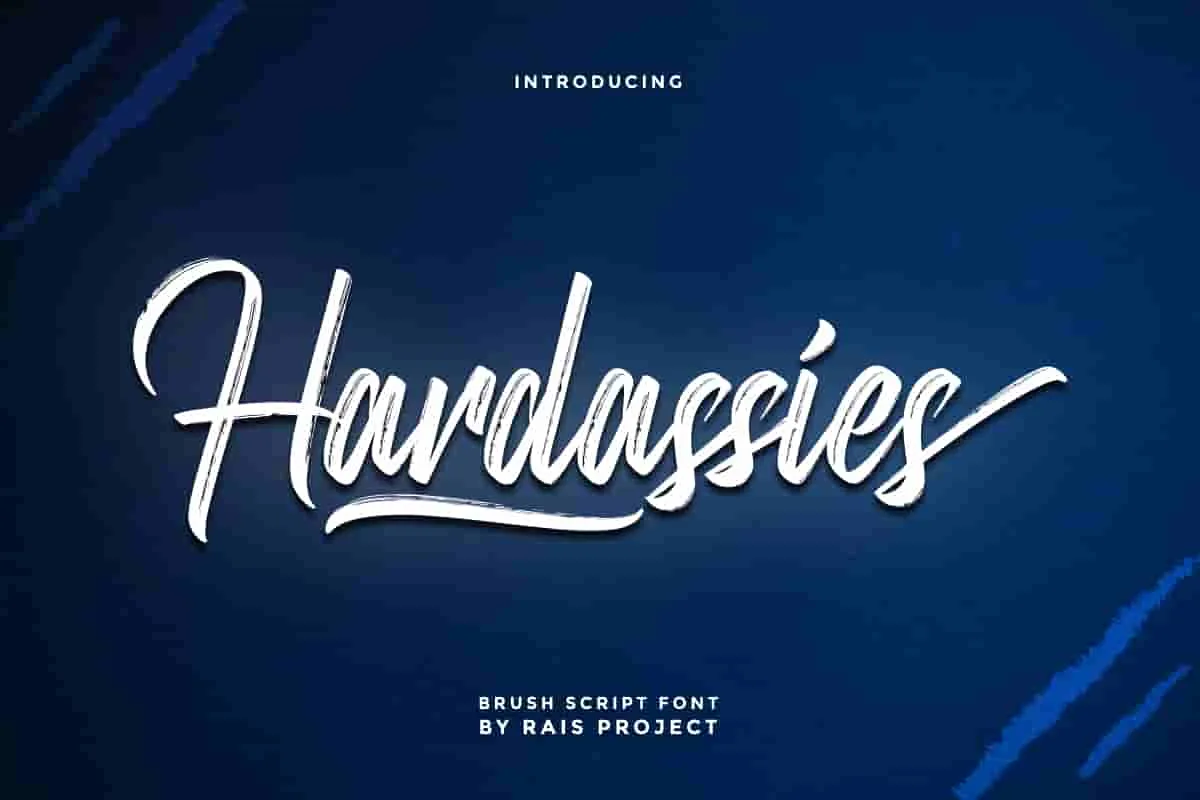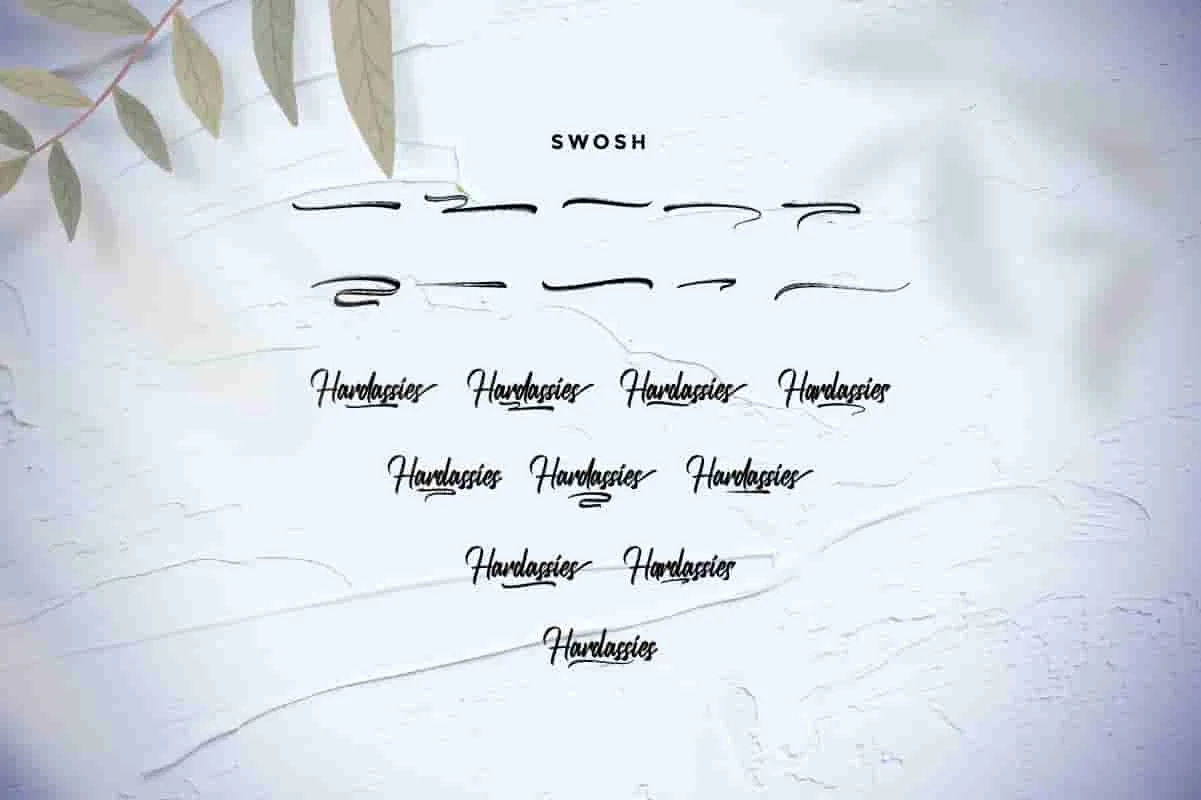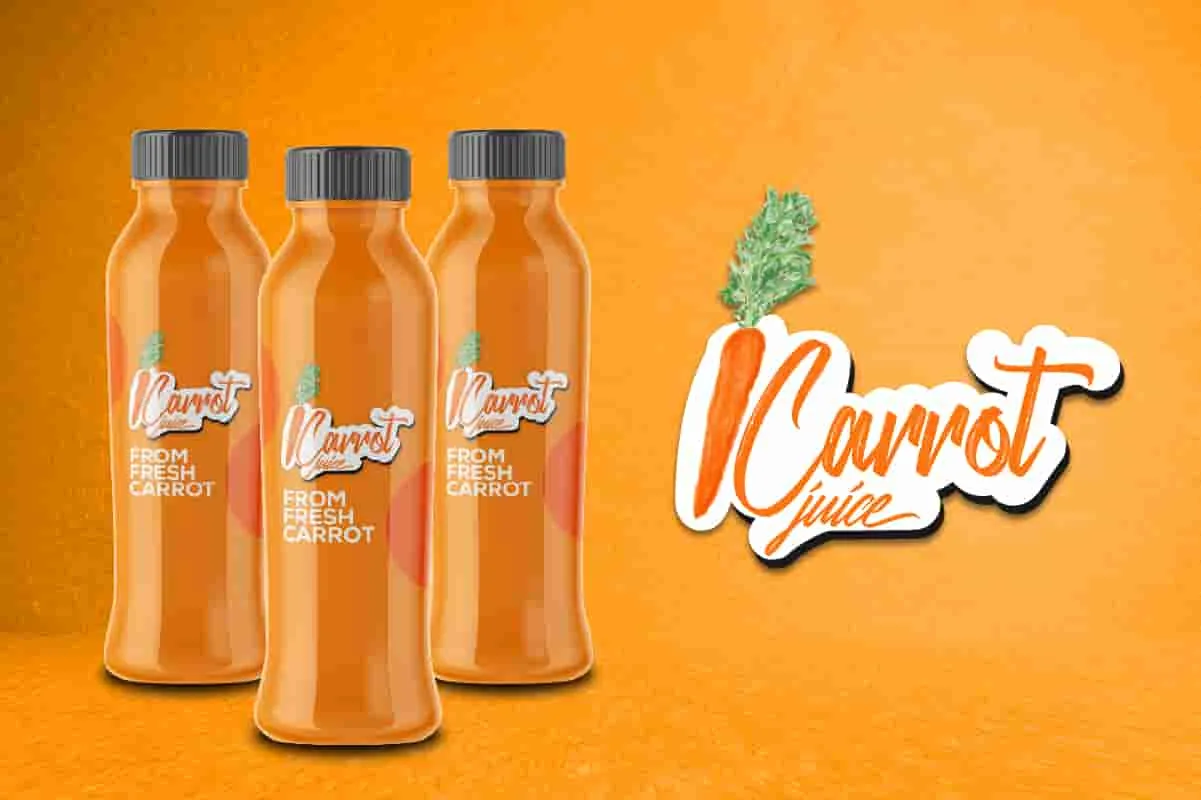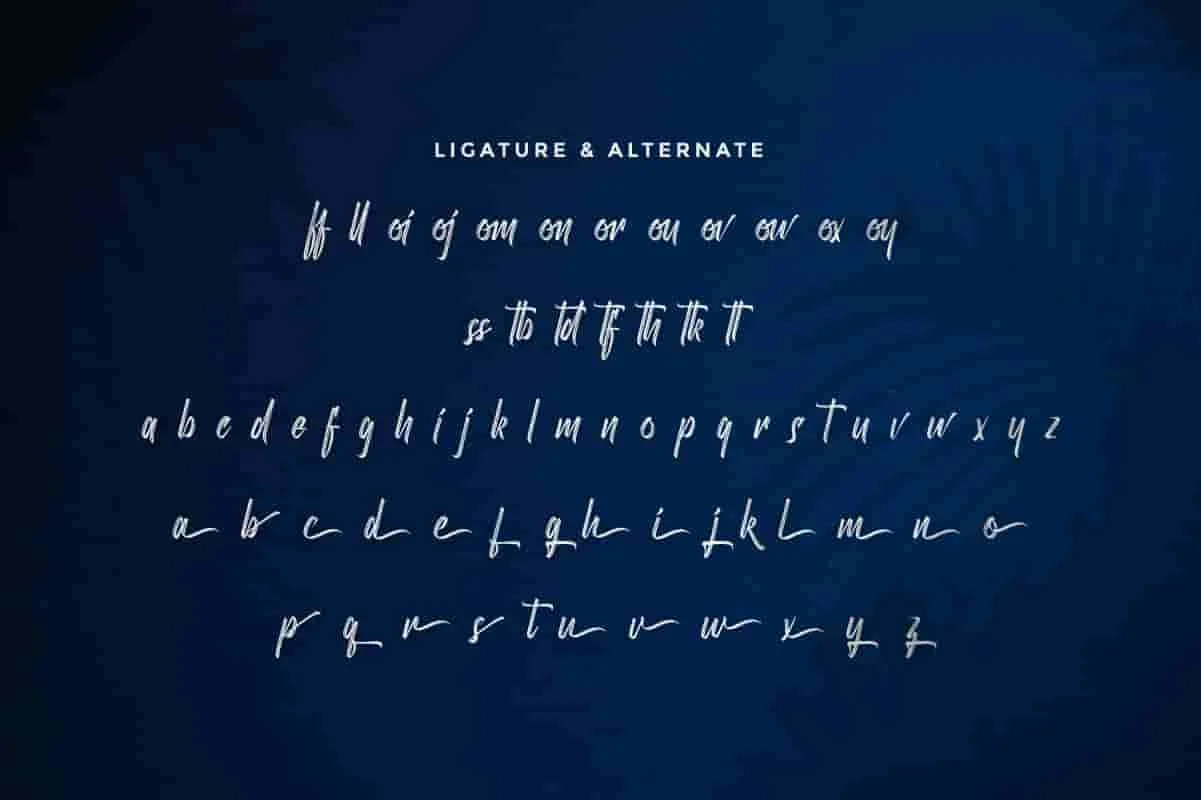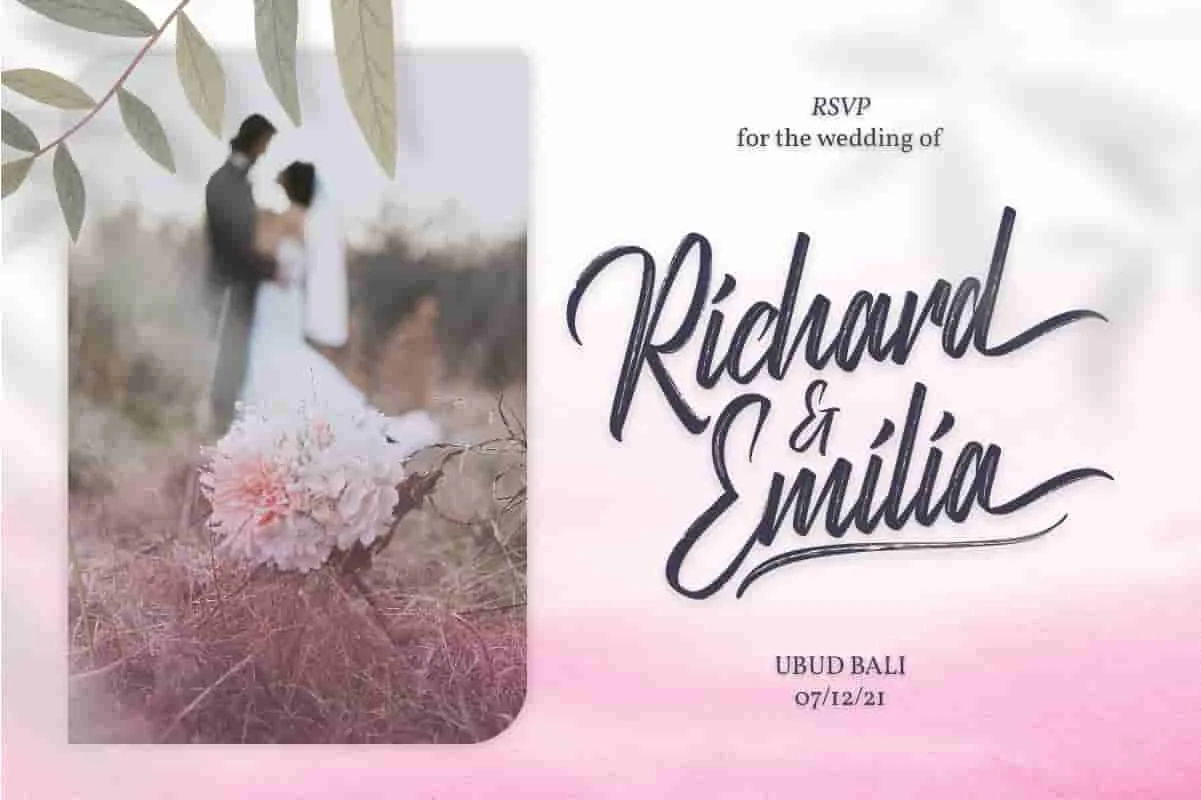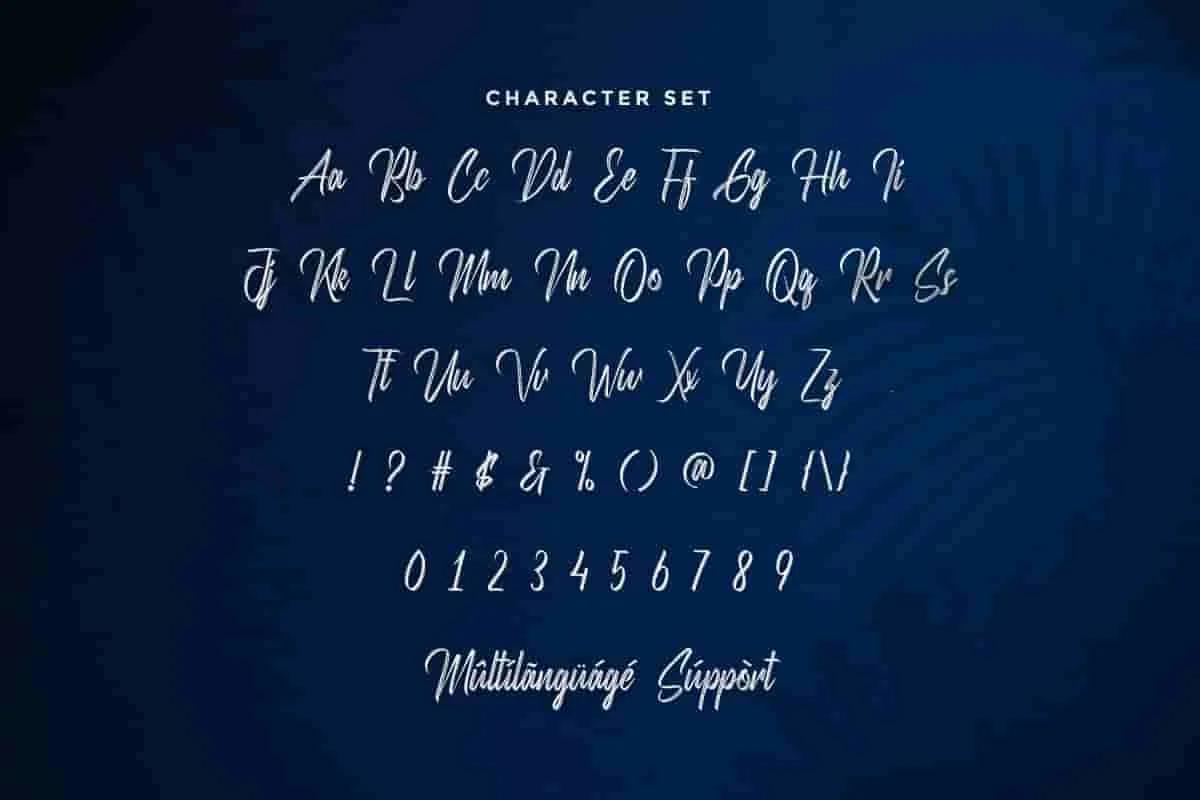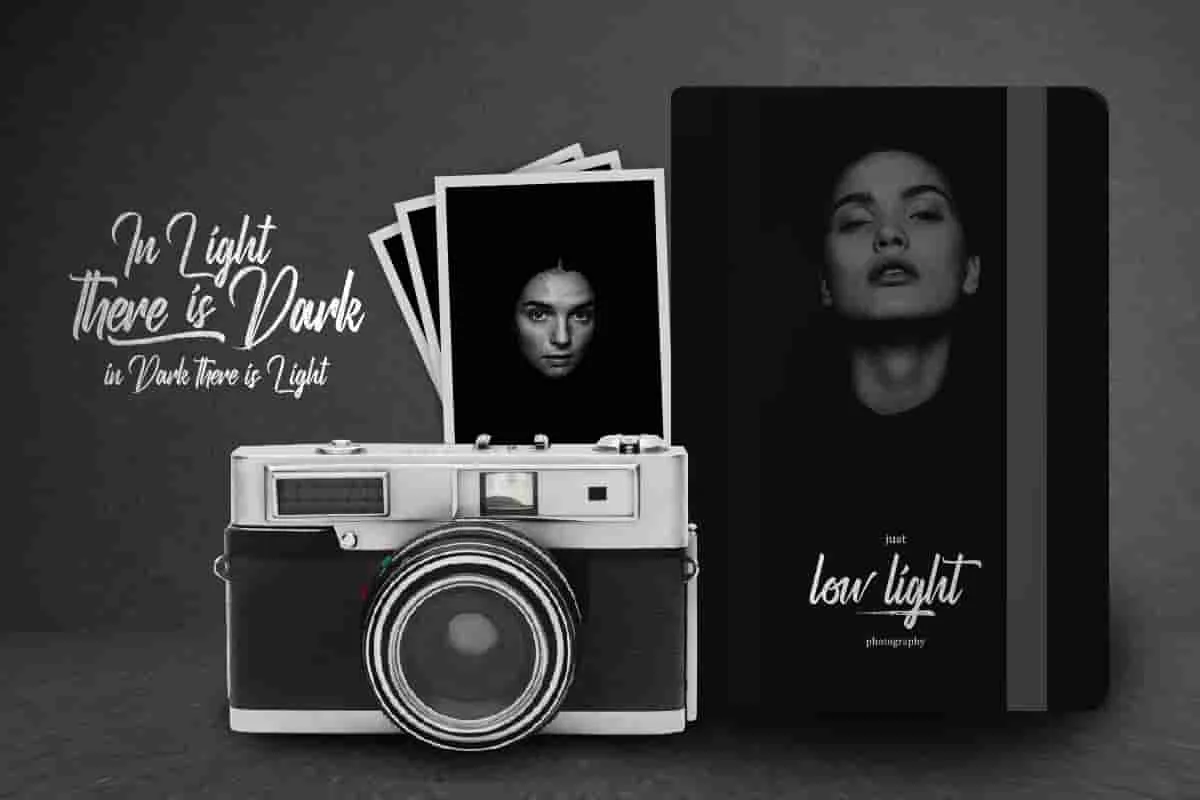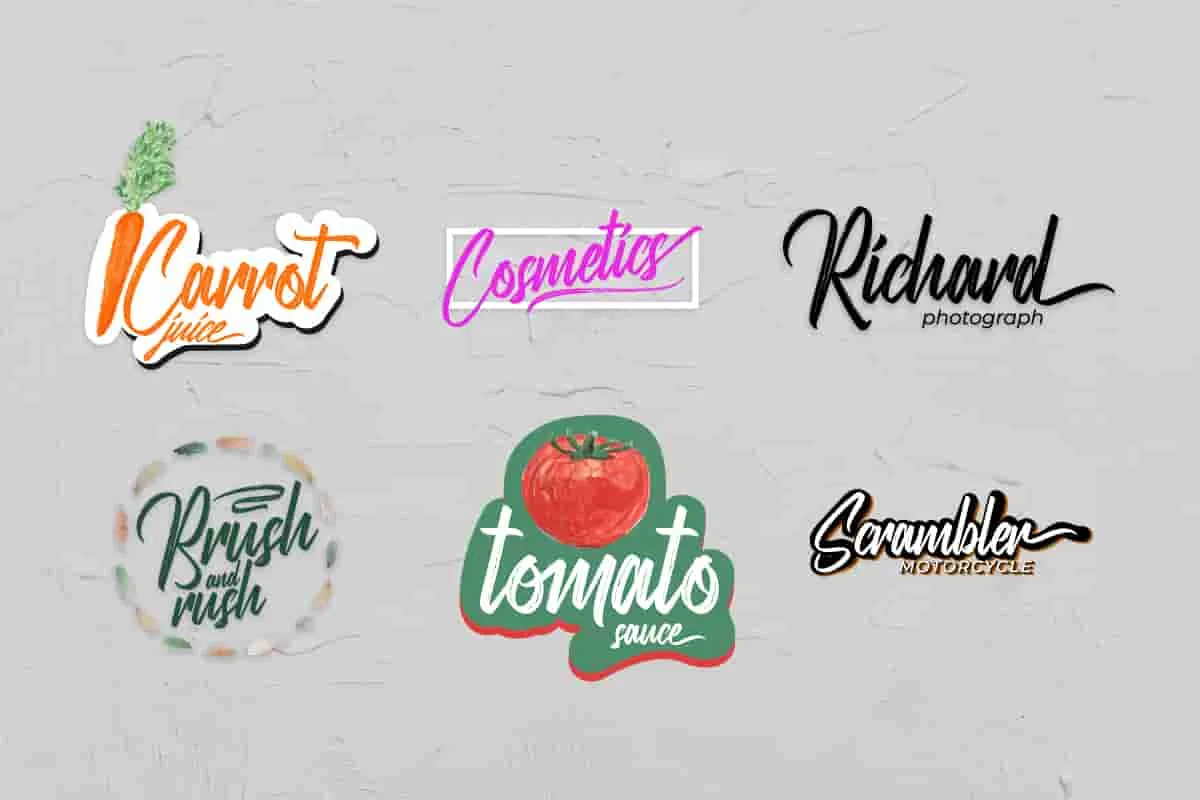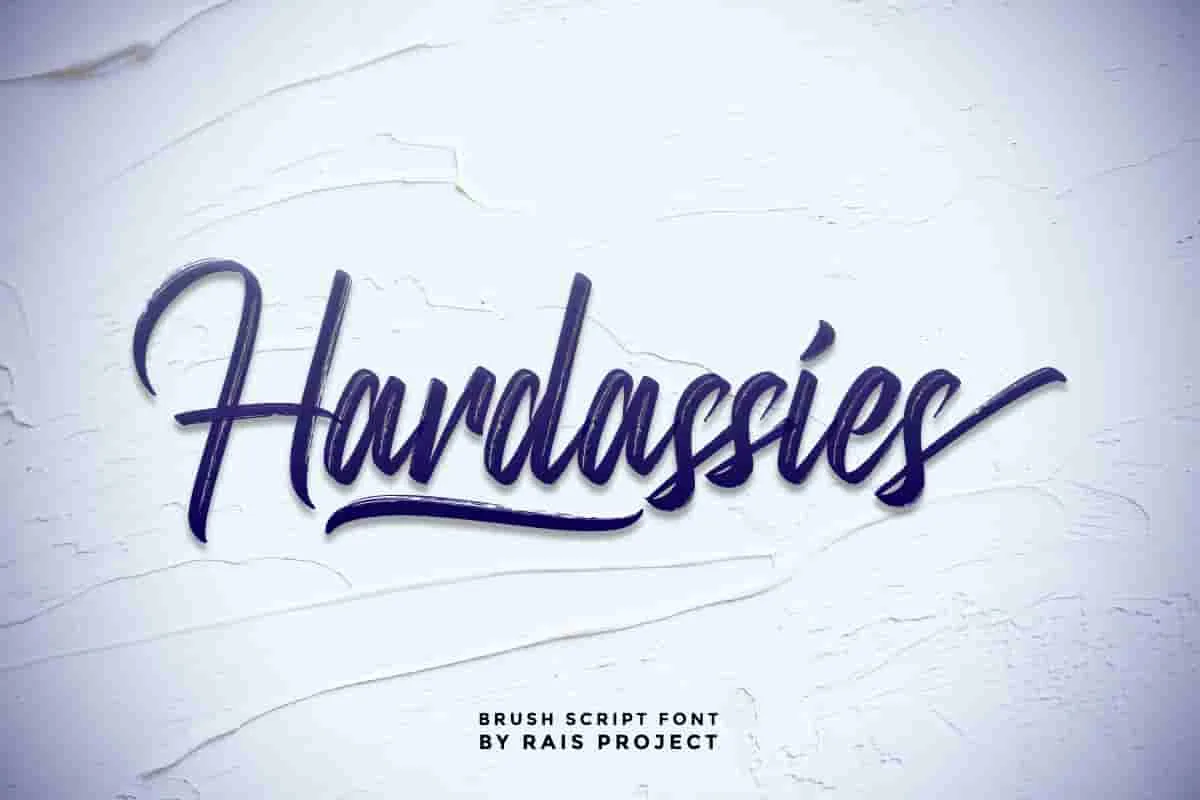
Hardassies Font
Hardassies Font is a textured brush font, designed by Rais Project. It is a classic brush calligraphy font with exclusive style that is great for vintage, old style, wedding, Movie, Game, Magazine, Music, Video, Sports, Racing etc
Hardassies Font is a rough grunge brush font with exclusive style. You can see the demo font below. You can also input any word you want so you can see what it will look like :
Hardassies Font is remotely made in Bandung and Garut, Indonesia. The font was handcrafted for any your special projects including : headlines, promotion, events, branding, advertising, magazine, signage, invitation, stationery, social media posts, label, or and any projects that need unique strong style. The theme/industries of this font is Vintage, Horror, Movie, Game, Magazine, Music, Video, Sports, Racing etc
Hardassies Font includes full set of AWESOME uppercase letters, numerals, a large range of punctuation and ligatures. With a unique textured effect.